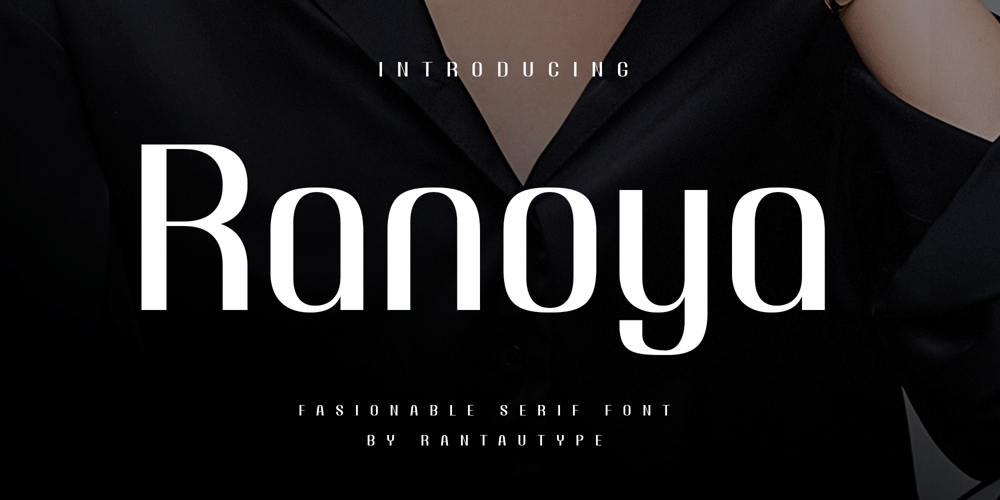
Ranoya Font Family was designed by Yudi Pratama Chandra and published by RantauType. Ranoya contains 2 styles and family package options. Ranoya – a elegant fasionable display serif with Sophisticated shape. We love how shape it look make it professional. We keep this font looks fashionable, elegant, luxury, premium, modern, catchy and easy to use. Ranoya come with two font ( reguler and italic ), alternate, ligature and multinggual accent support.Ranoya is beautiful choice for any creative endeavor to make perfectly suitable for creating elegant, chic, lifestyle design such as logos, title, cover, branding, display and magazine, corporate, business project, wedding project, advestising project and much more. Now you can choice ranoya to make your branding stand out!What you have: 2 Font (reguler and italic) Standar character A-Z and a-z Numberial and Functional Alternate and ligature Works on PC & Mac Simple installations Accessible in Adobe Illustrator, Adobe Photoshop, Adobe InDesign, even work on Microsoft Word. PUA Encoded Characters – Fully accessible without additional design software. Fonts include Multilingual Support for: Afrikaans, Albanian, Asu, Basque, Bemba, Bena, Breton, Chiga, Cornish, Dutch, English, Estonian, Filipino, Finnish, Friulian, Galician, Gusii, Indonesian, Irish, Italian, Kabuverdianu, Kalenjin, Kinyarwanda, Luo, Luxembourgish, Luyia, Machame, Makhuwa-Meetto, Makonde, Malagasy, Manx, Morisyen, North, Ndebele, Nyankole, Oromo, Portuguese, Quechua, Romansh, Rombo, Rundi, Rwa, Samburu, Sango, Sangu, Scottish, Gaelic, Sena, Shambala, Shona, Soga, Somali, Spanish, Swahili, Swedish, Swiss, German.Thank you for your purchase!Hope you enjoy with our font!z